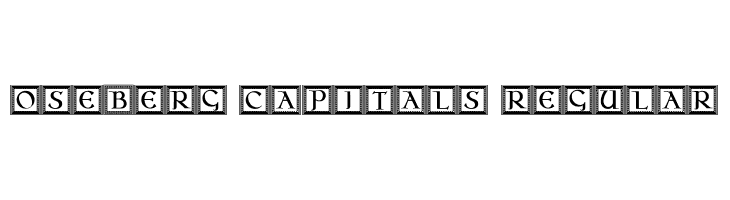
A decorative, medieval-inspired font with ornate, framed characters.
A modern, condensed, light italic font with clean lines and a sleek design.
A playful, decorative font with letters embedded in cartoonish characters.
A bold, outlined font with a playful and dynamic style.
A bold, italicized font with a futuristic and dynamic design.
A bold, modern sans-serif font with geometric shapes and clean lines.
A modern, condensed, medium-weight italic font with a sleek design.
A bold, hand-painted style font with a dynamic and rough texture.
A bold, 3D font with a shadow effect and a blend of script and serif styles.
A bold, playful font with rounded edges and a friendly appearance.